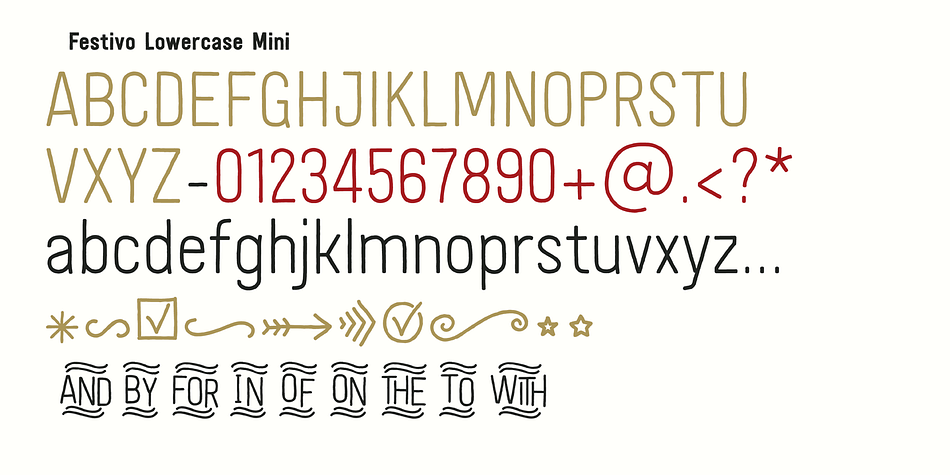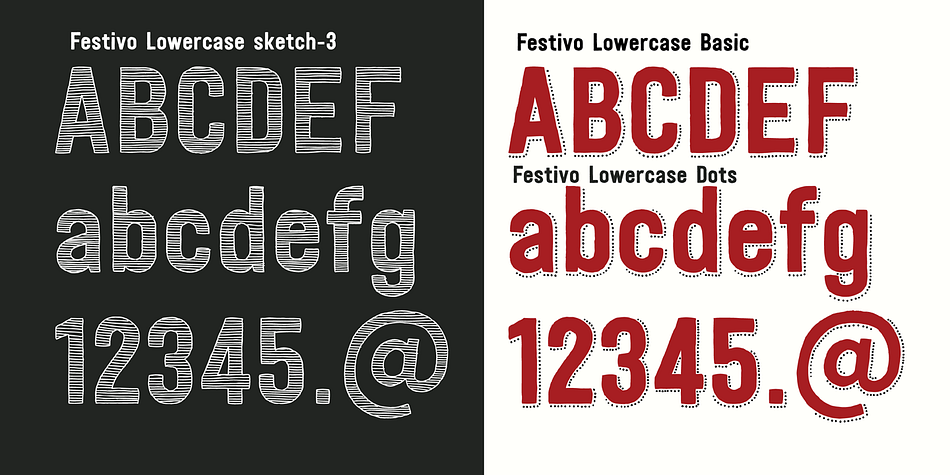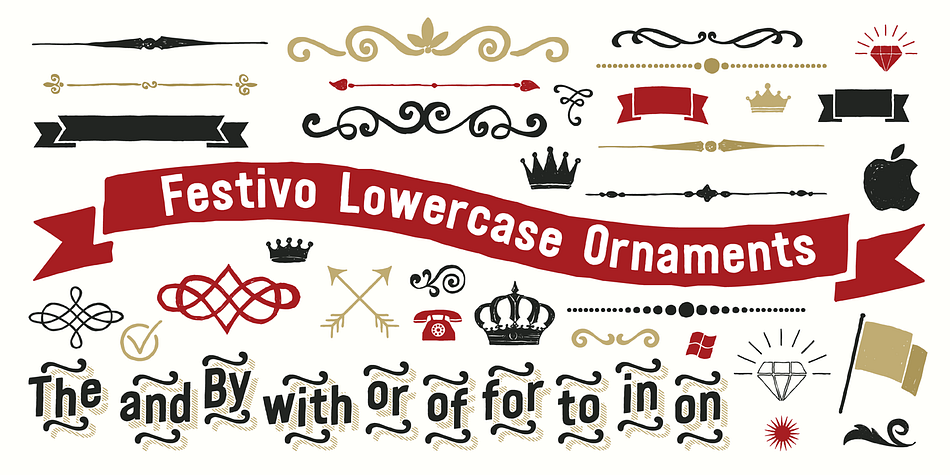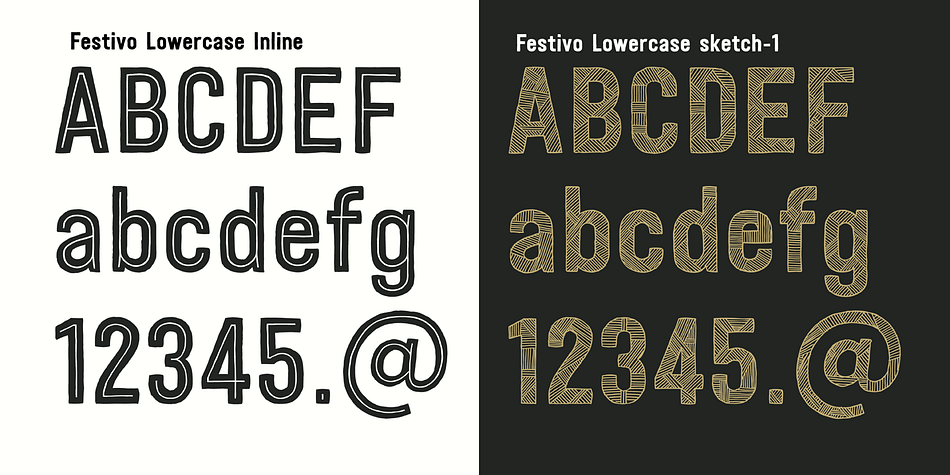
Festivo Lowercase
Festivo Lowercase is a dingbat and display sans font family. This typeface has twenty-one styles and was published by Ahmet Altun.
With the lowercases of Festivo Letters Font Family, Festivo LC comes with new sketchs, new shadows and also ornaments.
Festivo LC Font Family is a handmade layered font which includes several textures and shadows.
Different font types can be created using various combinations of Festivo LC Fonts and colors.The kernings and the metrics of Festivo LC Fonts are not the same as Festivo Letters
It is advised not to use them together.The various possibilities of the Festivo Font Family allows you to create a lot of great works such as posters, magazines, printings, t-shirts etc.